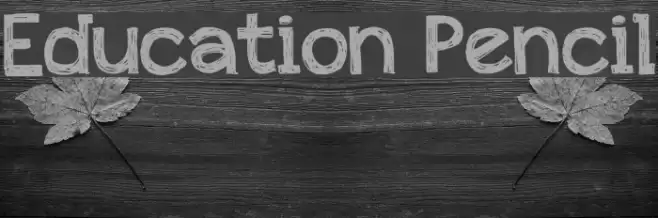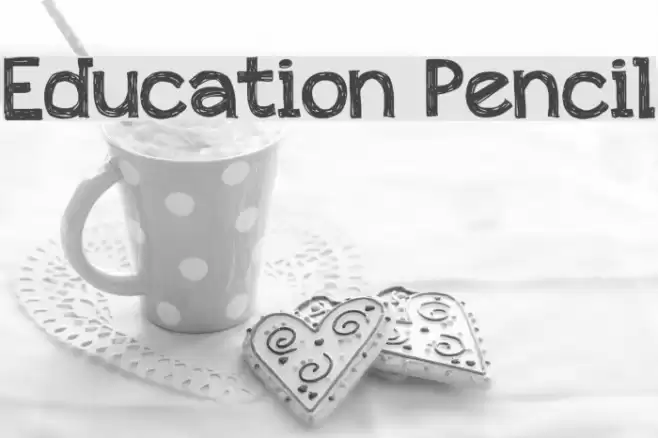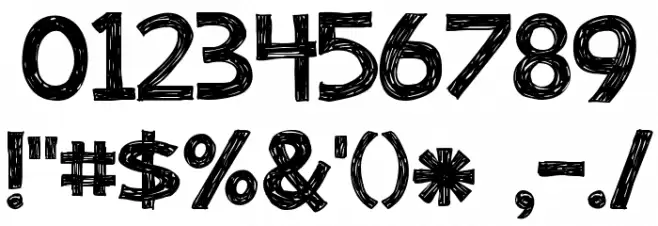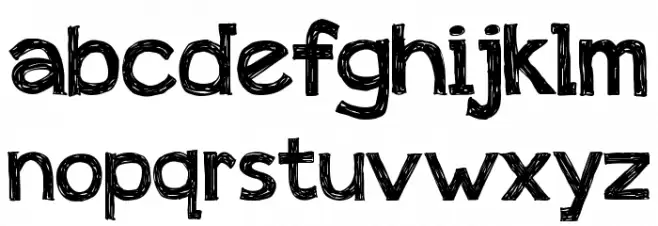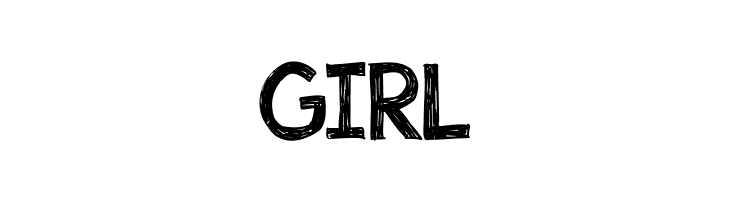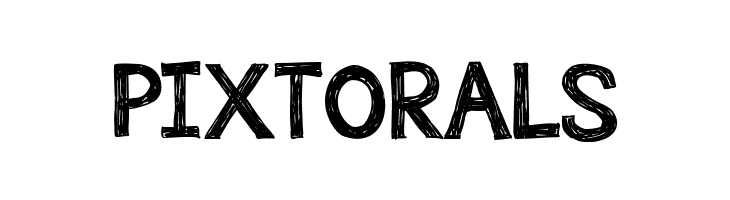
Education Pencil Font
Education Pencil Description
This font features a playful, hand-drawn style reminiscent of sketches made with a pencil. The letters have a rough, textured appearance, giving them a casual and informal vibe. The uppercase and lowercase characters maintain a consistent style, with slightly irregular lines that add to the charm. The numbers and special characters follow the same aesthetic, ensuring a cohesive look across all text elements. This font is ideal for projects that require a fun and approachable feel, such as educational materials, children's books, or creative branding.
A playful, hand-drawn font with a pencil sketch style from Famous fonts.
- Font: Education Pencil
by hardikmeckwan - Weight: Regular
- Proposed Projects: Ideal for educational materials, children's books, creative branding, and informal invitations.
- Overall Style: Casual, Playful
- Use Case: Headlines, Informal text, Creative projects